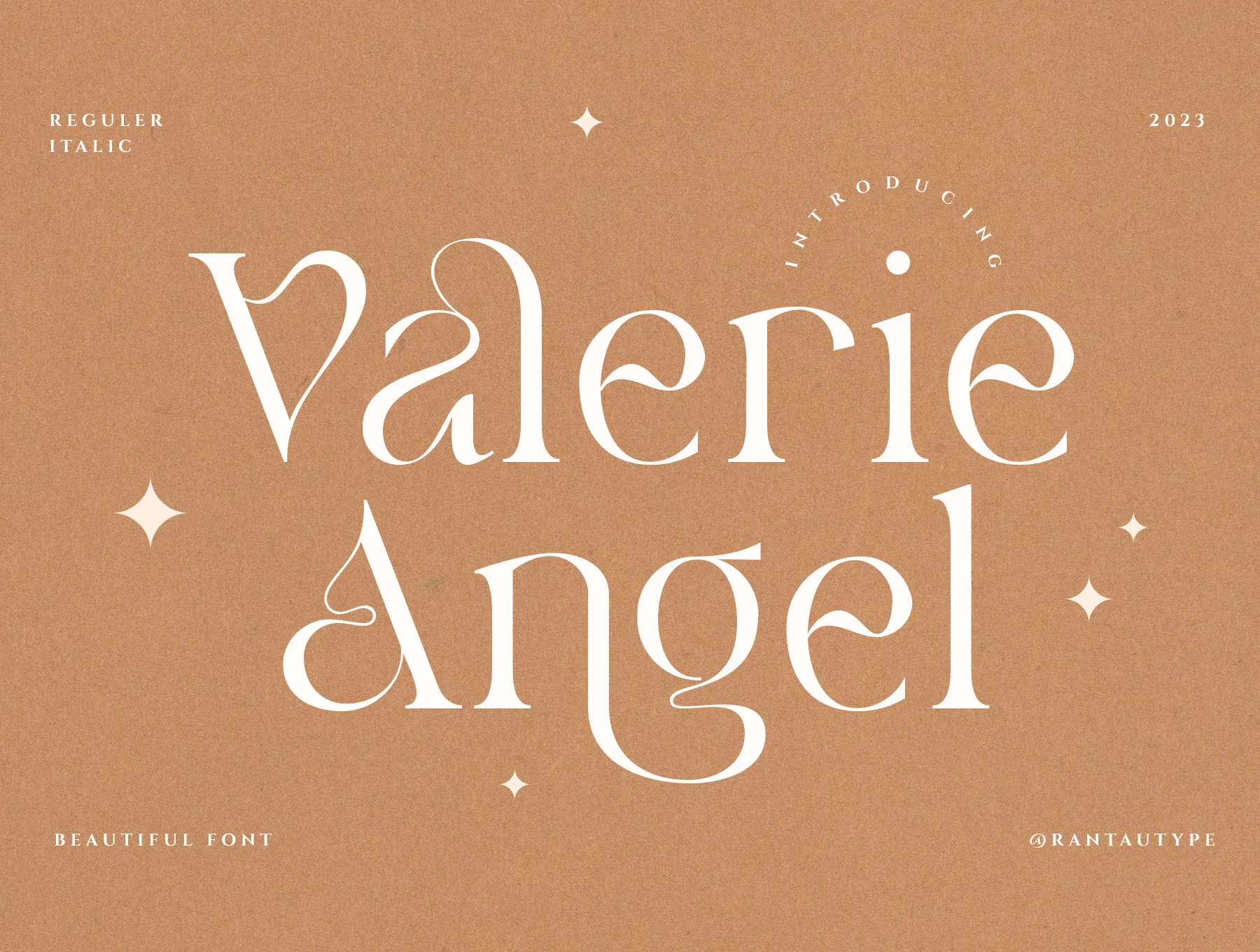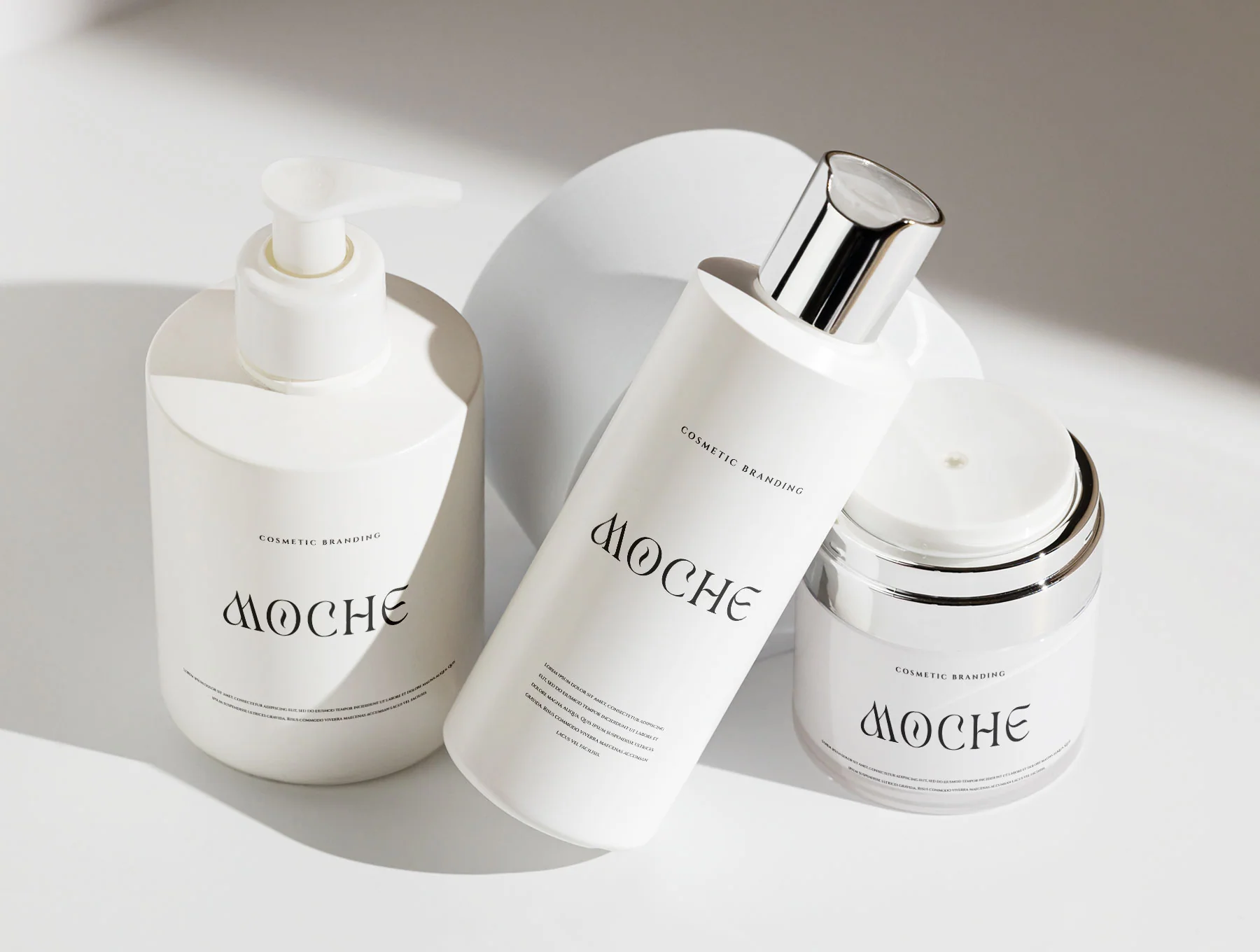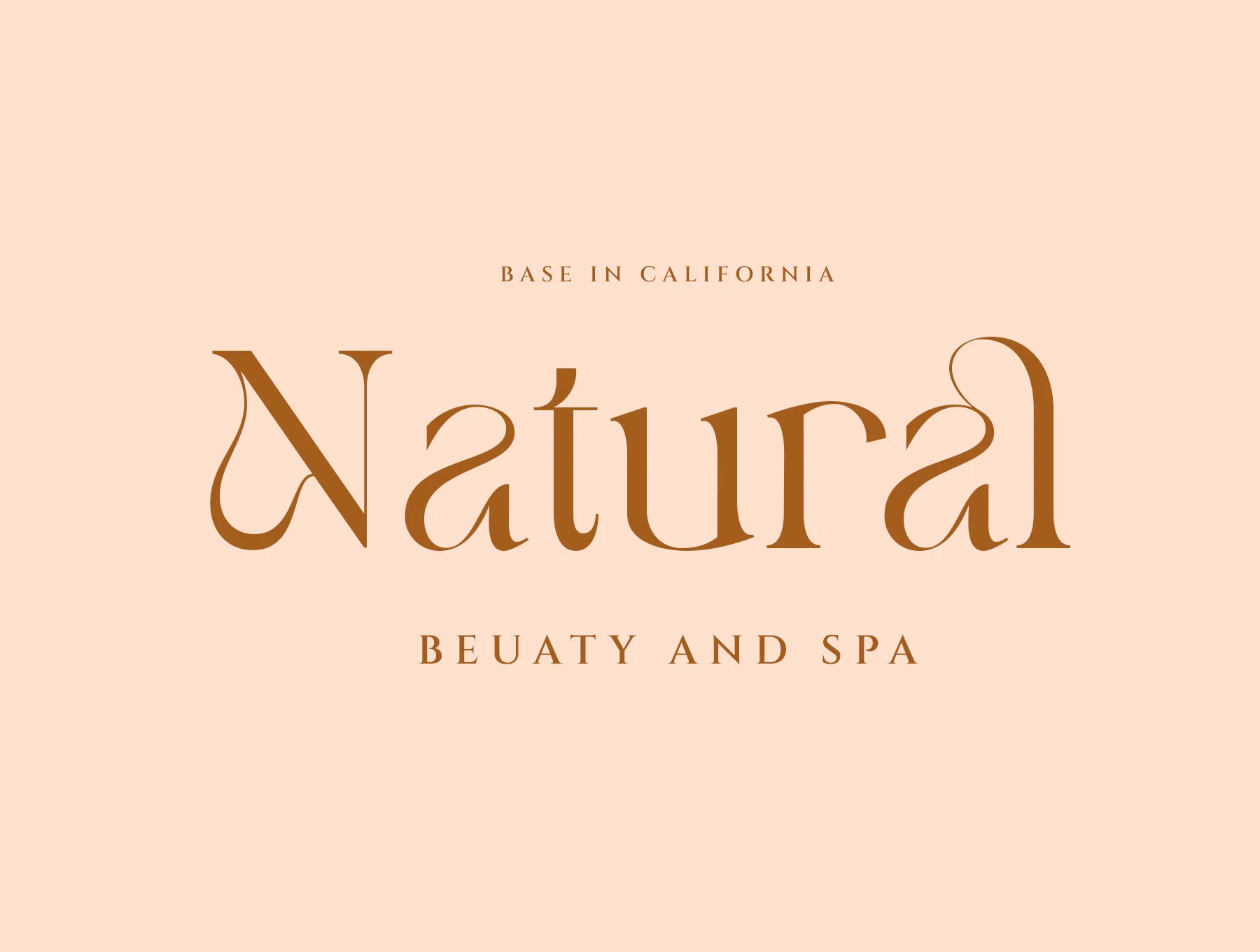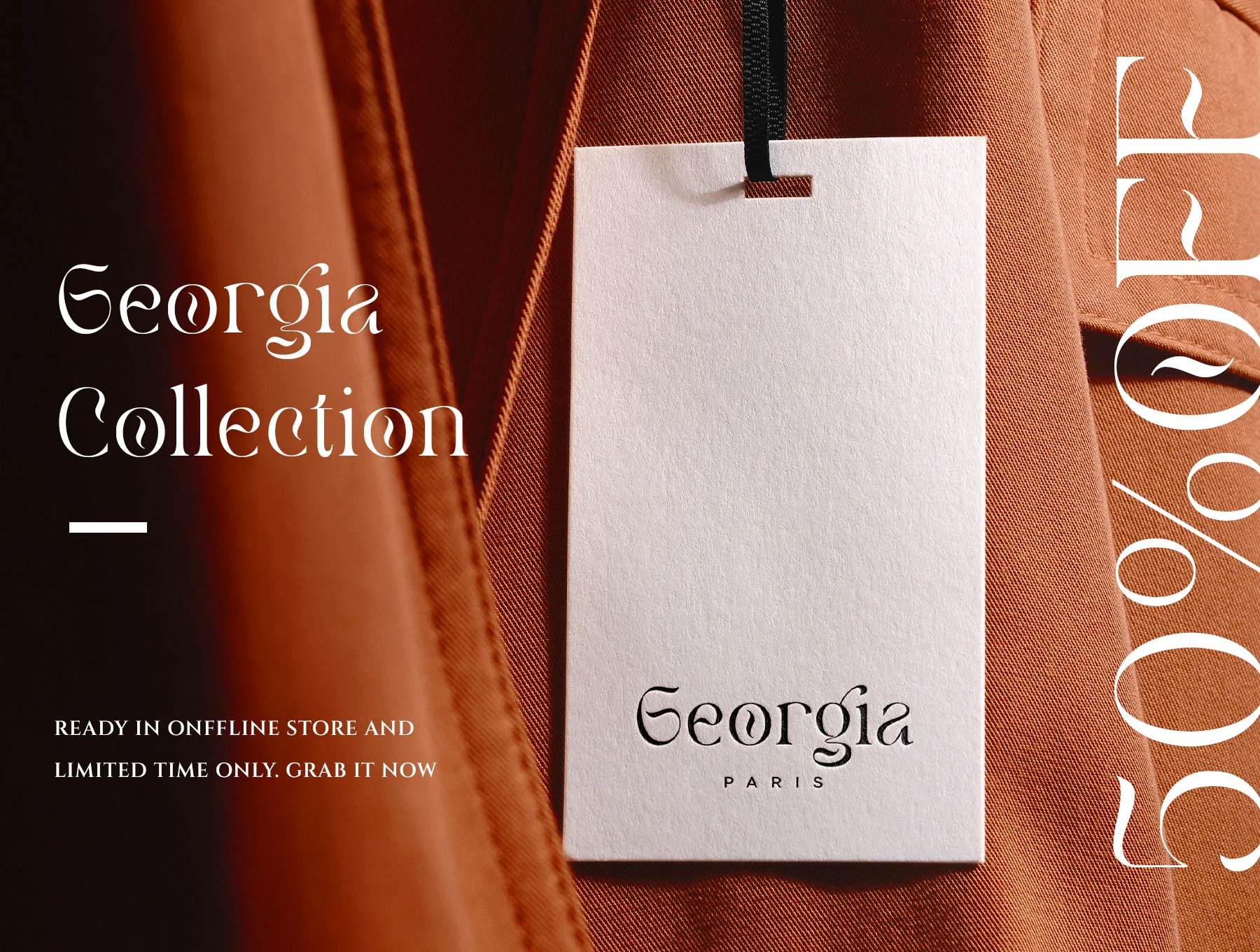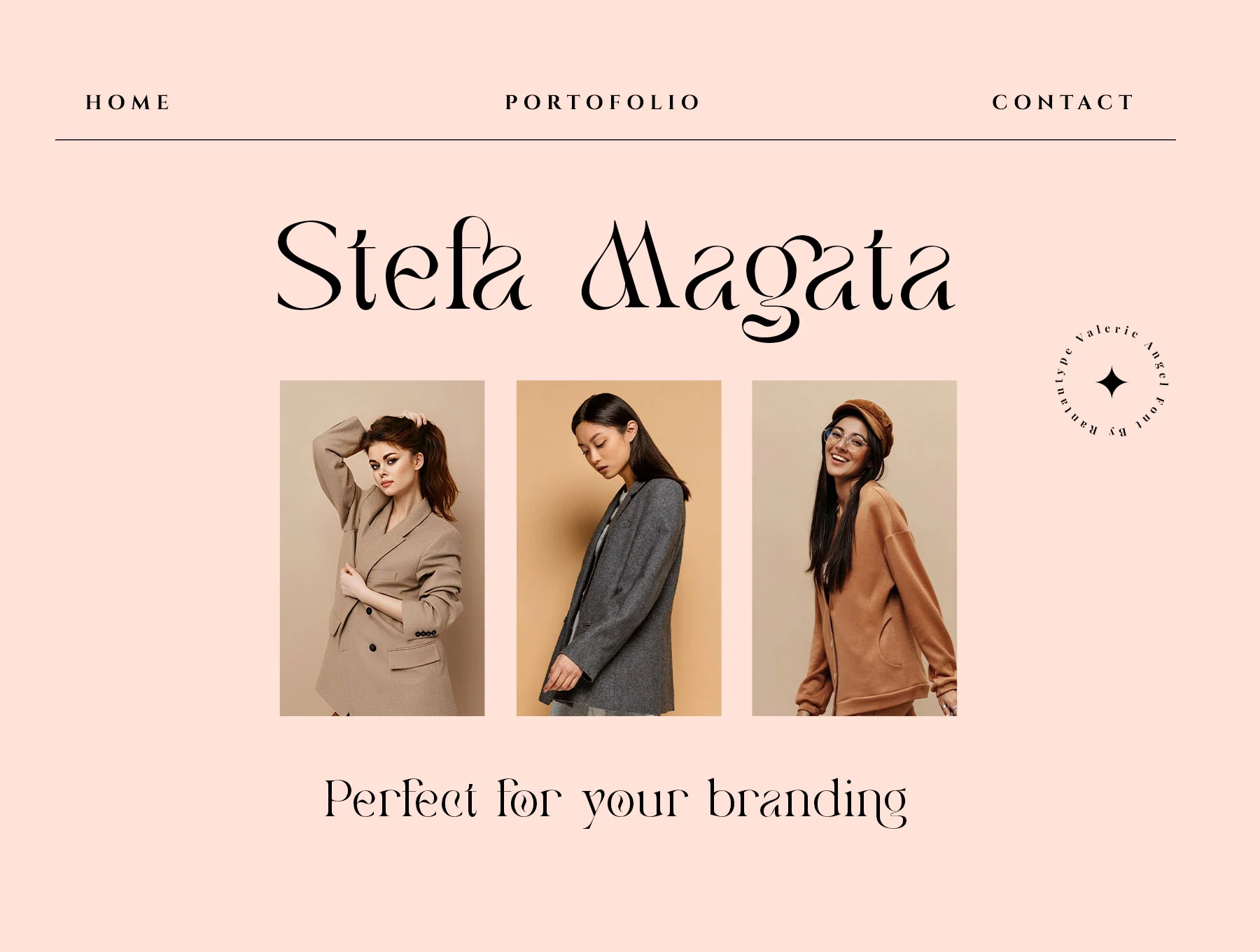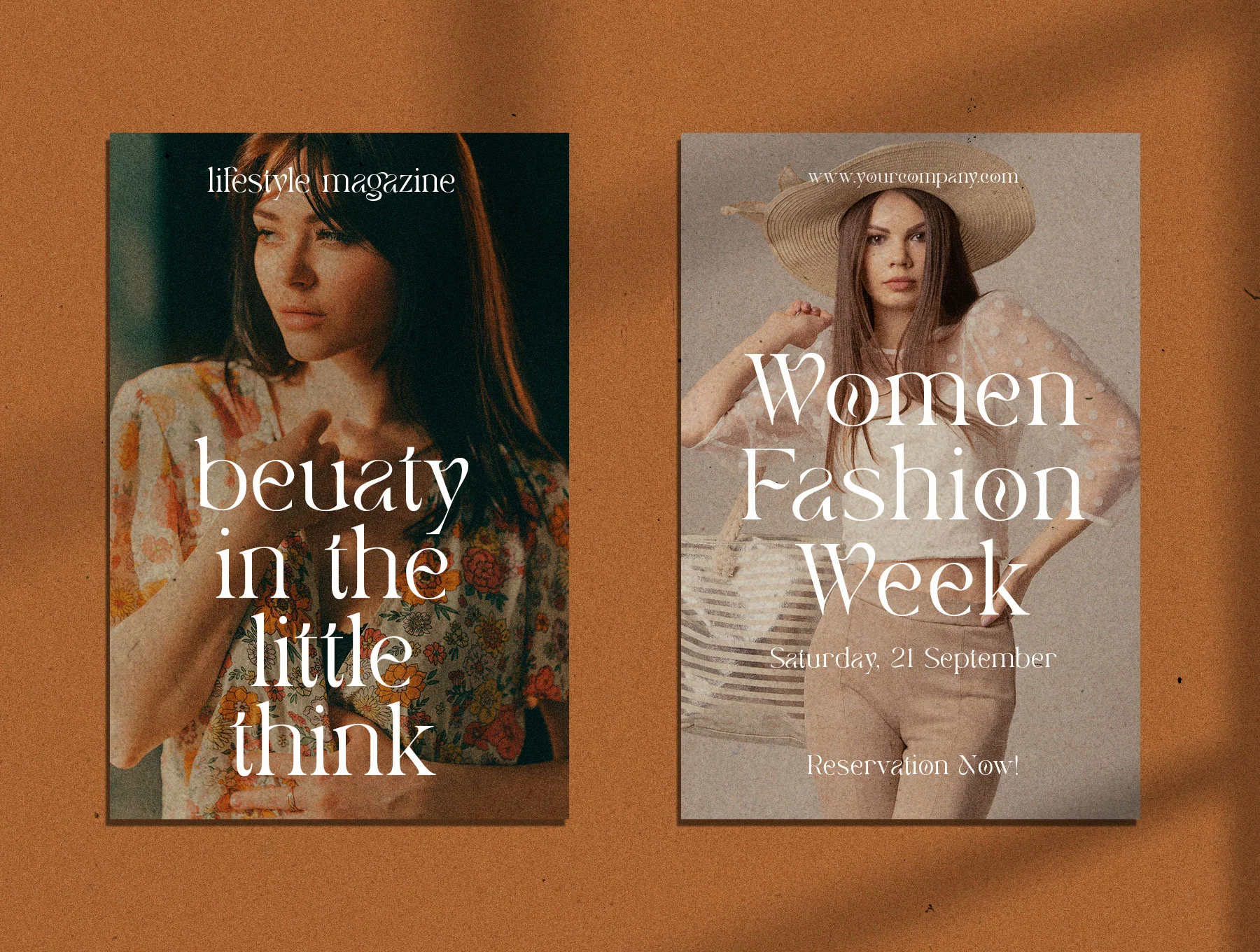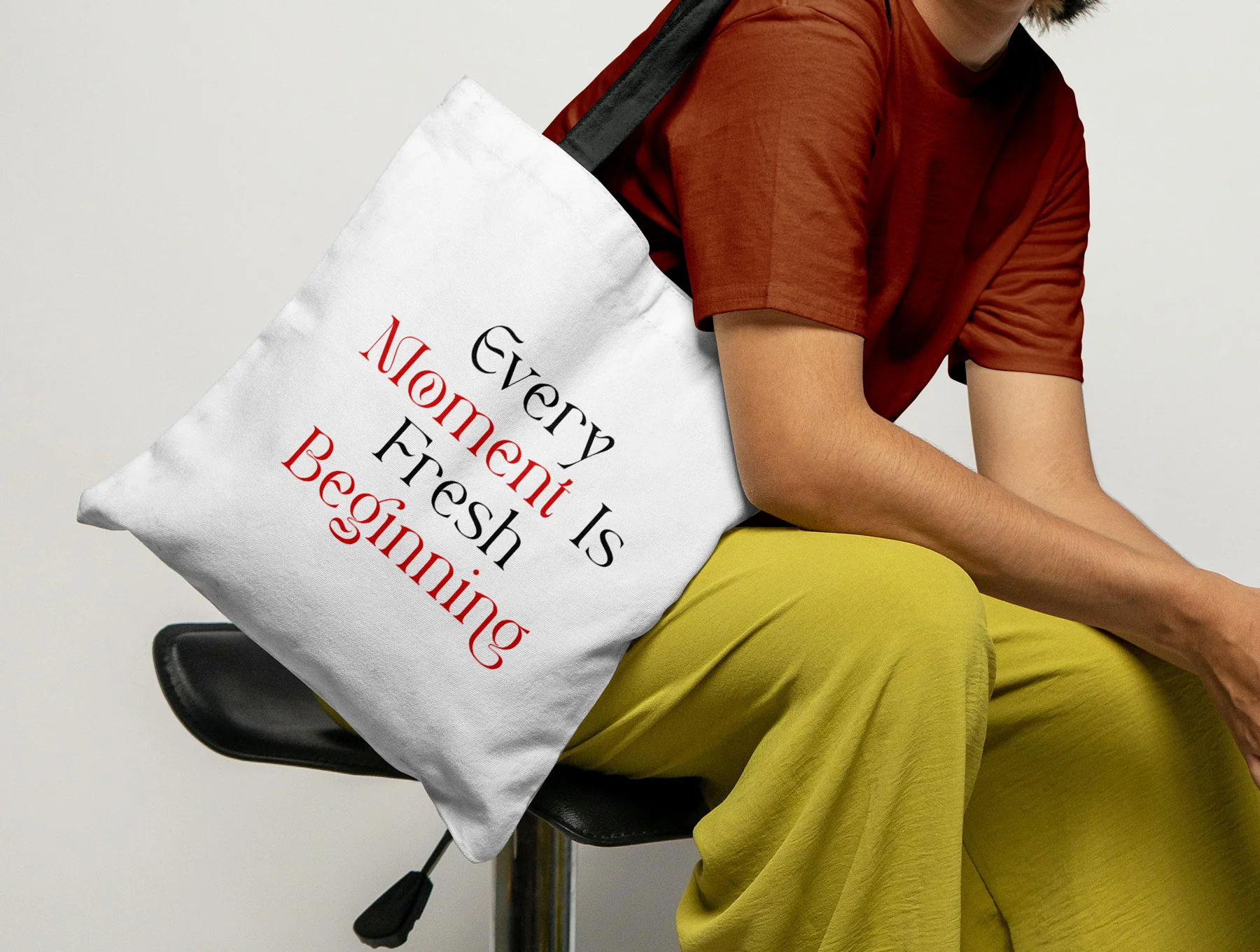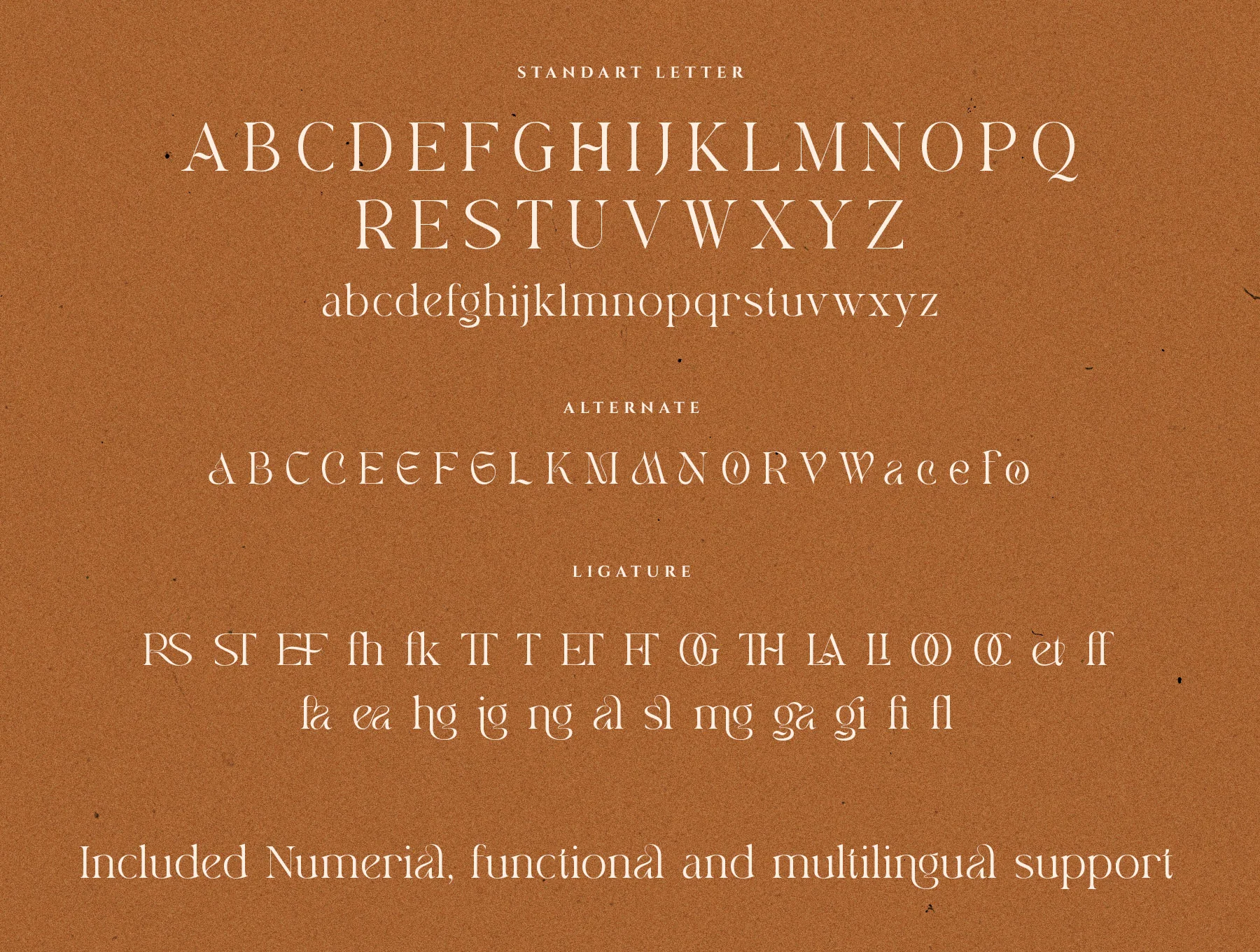
Valerie Angel Modern Serif Font
Valerie Angel Contemporary Serif Typeface
Basic A–Z and a–z alphabet characters
Numerical characters and functional symbols
Includes alternate characters and ligatures
Basic A–Z and a–z alphabet characters
Numerical characters and functional symbols
Includes alternate characters and ligatures
Valerie Angel by rantautype is an elegant feminine display serif with graceful curves, stylish alternates, ligatures, multilingual support, and regular plus italic styles. Ideal for logos, titles, branding, invitations, weddings, magazines, social posts, ads, packaging, labels, quotes, watermarks, and events. Includes OTF, TTF, and WOFF files. Contact: rantautype@gmail.com